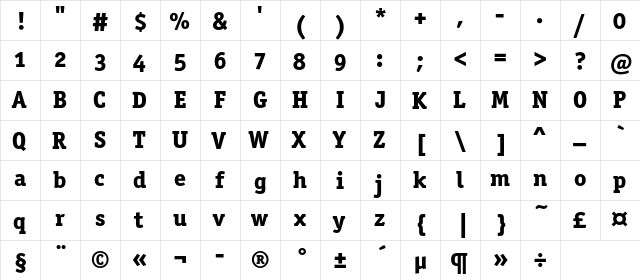
OfficinaSerifExtraBoldOSC Regular
Design Context for OfficinaSerifExtraBoldOSC Typeface
OfficinaSerifExtraBoldOSC carries the refined structure of traditional serif typography, with bracketed terminals and considered proportions that communicate credibility and craft. The heavy weight commands attention and anchors typographic hierarchies.